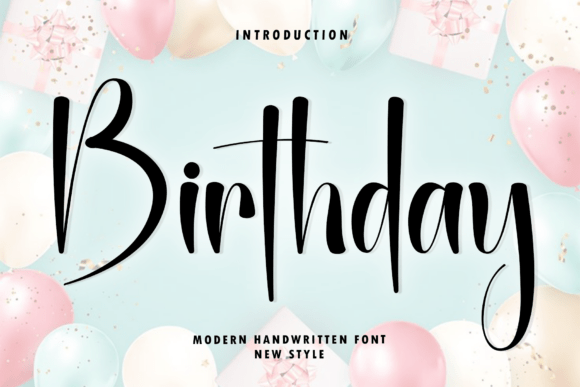
The Elegance of Birthday Font: Elevating Your Designs with Sophistication
I still remember the design project that led me to discover the Birthday Font. I was working on a branding project for a luxury lifestyle client, and I was struggling to find the perfect font that would capture the essence of their high-end products. The client wanted something that exuded elegance, sophistication, and a touch of handcrafted charm. After hours of scouring through font libraries, I stumbled upon Birthday Font, and it was love at first sight! ✨
A Designer’s Delight: What I Love About Birthday Font
So, what makes Birthday Font so special? Here are a few things that I absolutely adore:
- ✨ Sophisticated and fluid script: Birthday Font boasts a beautiful, hand-penned touch that adds a level of sophistication to any design project.
- ✅ Vertically elongated letterforms: The font’s tall, sweeping ascenders and rhythmic visual flourishes create a sense of elegance and refinement.
- ✅ Fine, monolinear stroke weight: The smooth character joins and consistent stroke weight give the font a sense of professionalism and visual flow.
- ✅ Perfect for luxury branding: Birthday Font is an exceptional choice for boutique brand identities, personal signature watermarks, elegant lifestyle marketing, and professional social media headers.
While Birthday Font is an amazing addition to any design project, there are a few small quirks to be aware of:
- ⚠️ Limited use in body text: Due to its elegant and cursive nature, Birthday Font may not be the best choice for lengthy body text. It’s better suited for headings, titles, and short paragraphs.
- 🤔 Requires careful kerning: As with any script font, kerning can be a bit tricky. Make sure to adjust the kerning to ensure that the text looks balanced and visually appealing.
The Story Behind Birthday Font
Birthday Font was designed by a team of typographers who wanted to create a font that would capture the essence of elegant, hand-penned script. The design process involved countless hours of research, sketching, and refinement to create a font that would be both sophisticated and fluid. The result is a font that’s perfect for designers, crafters, and creative hobbyists who want to add a touch of luxury and elegance to their projects.
| Font Name | Birthday Font |
| Author | Creatype Designer |
| What is the best use for Birthday Font? | Birthday Font is perfect for luxury branding, elegant lifestyle marketing, and professional social media headers. |
| Is Birthday Font suitable for body text? | No, Birthday Font is better suited for headings, titles, and short paragraphs. It’s not recommended for lengthy body text due to its elegant and cursive nature. |